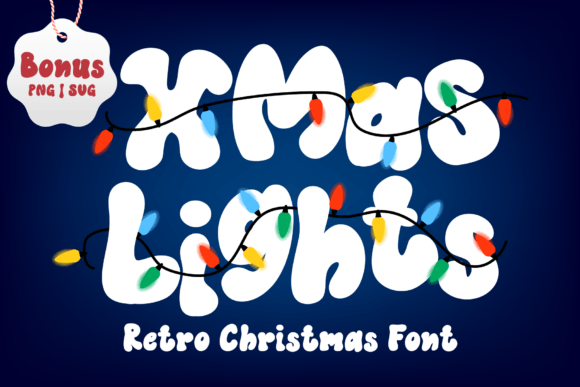
Are you ready to add a touch of festive magic to your designs? Look no further than Xmas Lights Font, the best font to use for Christmas! Created by Brown Cupple Fonts, this adorable and captivating decorative font will instantly elevate your projects and create a joyful atmosphere.
With its playful and authentic design, Xmas Lights Font is the perfect choice for all your favorite projects. Whether you're designing blog posts, logos, branding materials, ads, invitations, greeting cards, planners, photo albums, or decorations, this font will bring a delightful charm to every piece.
Imagine the excitement your audience will feel when they see the whimsical letters dancing across the page. The unique style of Xmas Lights Font will capture their attention and evoke a sense of holiday cheer. It's like a string of twinkling lights, adding a touch of magic to your creations.
But Xmas Lights Font is not just about aesthetics. It's also incredibly versatile and easy to use. With its wide range of characters and glyphs, you'll have endless possibilities to customize your designs. Whether you prefer a bold and eye-catching look or a subtle and elegant touch, this font has got you covered.
Let your creativity shine as you explore the numerous ways to incorporate Xmas Lights Font into your projects. Create stunning holiday-themed graphics, personalize your social media posts, or design stunning party invitations that will leave a lasting impression. The possibilities are endless!
Not only will Xmas Lights Font bring joy to your designs, but it will also save you time and effort. Its user-friendly nature ensures a smooth experience, allowing you to focus on what truly matters – spreading the holiday spirit and delighting your audience.
With Xmas Lights Font, your designs will shine brighter than ever before. Get ready to dazzle and delight with the best font to use for Christmas!